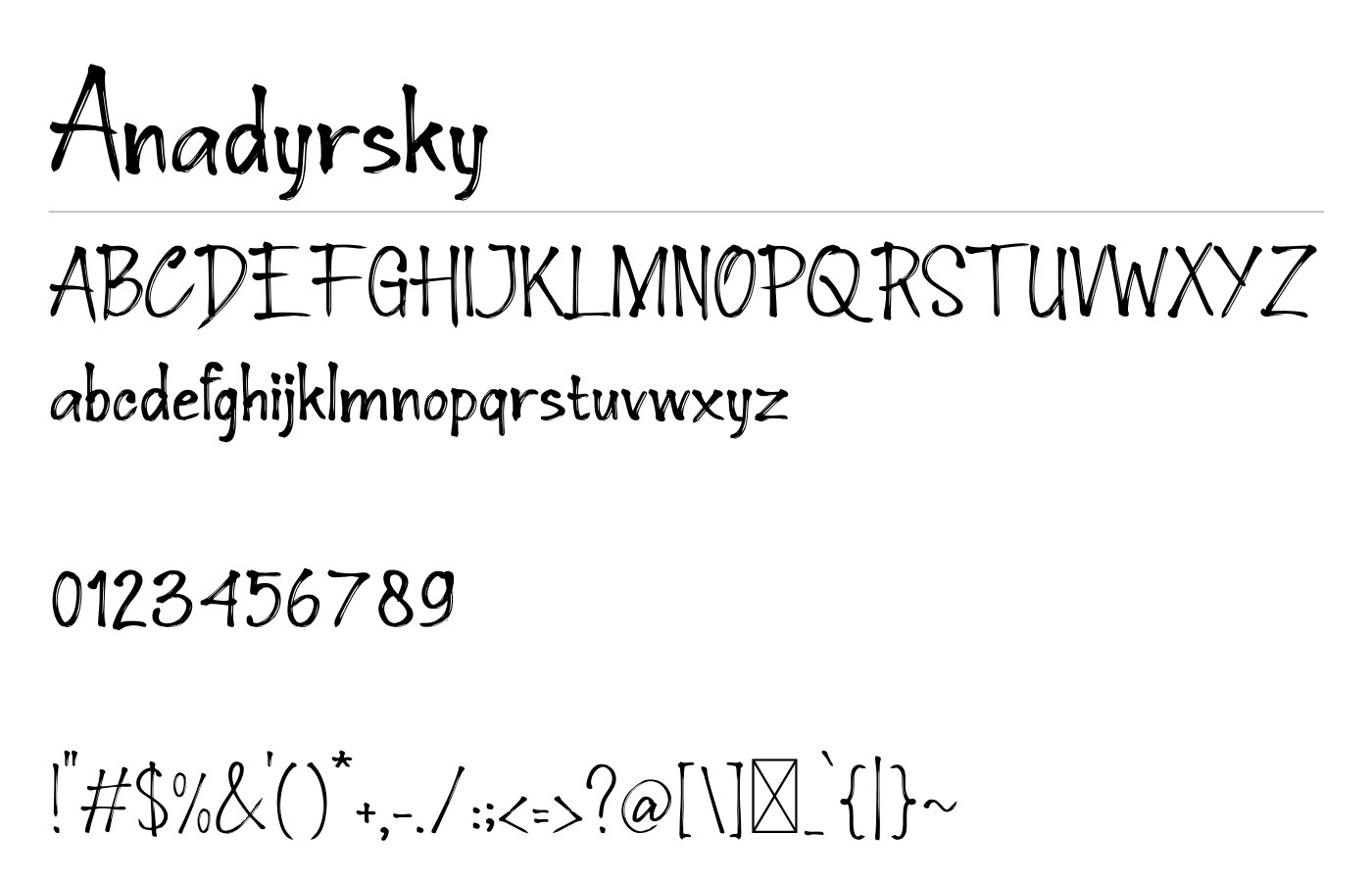
Anadyrsky is a playful, handwritten-style font that features irregular strokes and a casual, lively character. Its tall, narrow letterforms with varied line thicknesses give it an energetic and informal feel, making it perfect for creative projects, invitations, or branding that seeks a personal, artistic touch. This font works best in headlines or display text where its unique personality can really stand out.
Anadyrsky Font